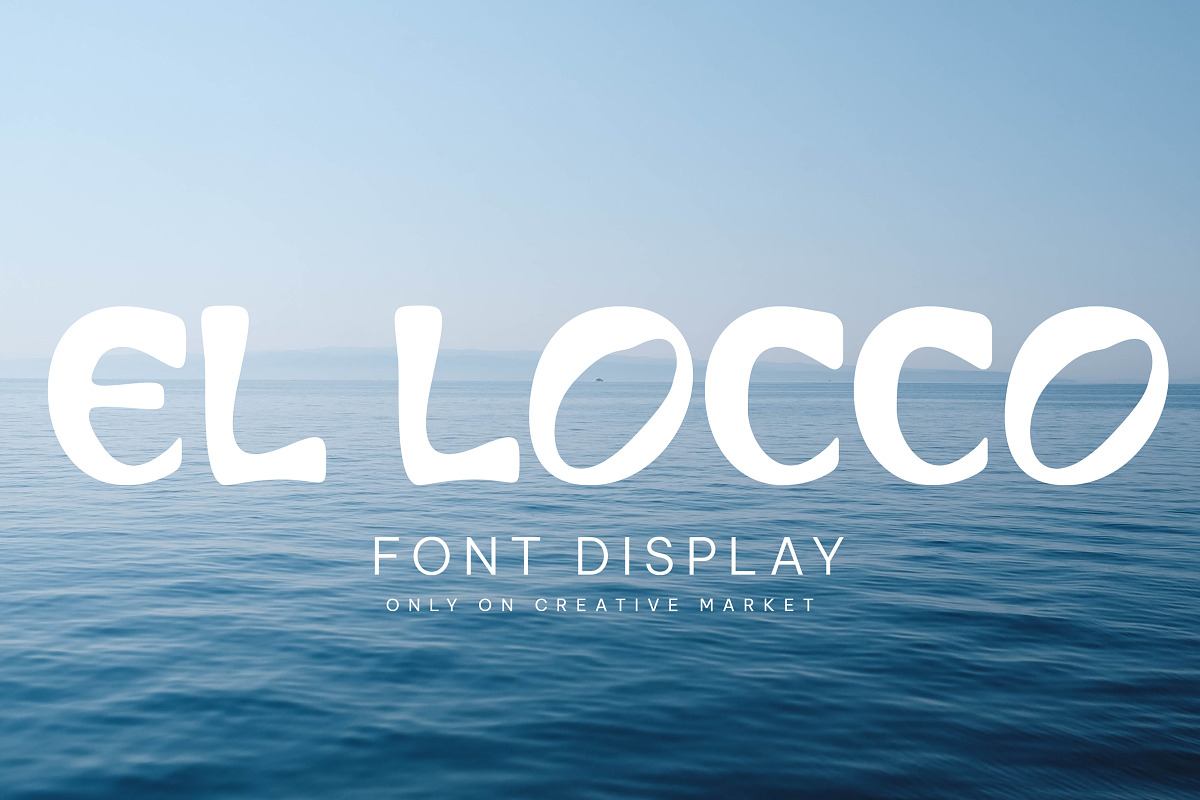
El Locco - Display Font Free Download
With its exaggerated shapes, dynamic angles, and slightly chaotic style, El Locco is perfect for posters, music events, streetwear branding, packaging, logos, and anything that needs to shout with style. It’s loud, fearless, and full of unpredictable character—just like its name.